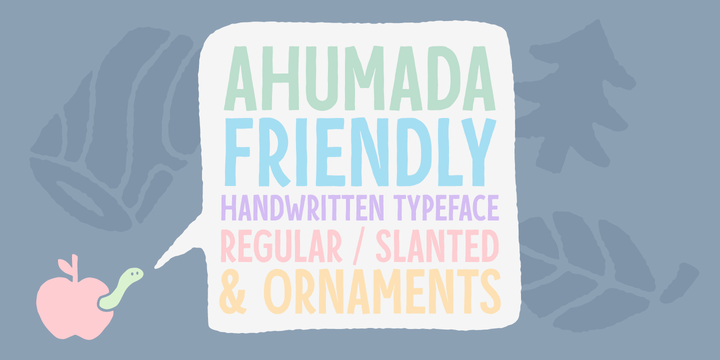
RNS Ahumada
by RNS Fonts
The RNS Ahumada Font Family was designed by Yorlmar Campos and published by RNS Fonts. RNS Ahumada contains 3 styles and family package options. More about this family
RNS Ahumada comprises 3 versions, Regular, Slanted and Ornaments, and was drawn pattienly with the handmade blackboards from the supermarkets in mind. A mix between readable and a warm human touch, that definitely makes it a friendly and sweet shape. The main features and advantage of having a varied set of widths, makes it a source that can be mixed to achieve a greater variety in composition. We recommend the use of color, it gives a strong personality and makes more attractive.
Designers: Yorlmar Campos
Foundry: RNS Fonts